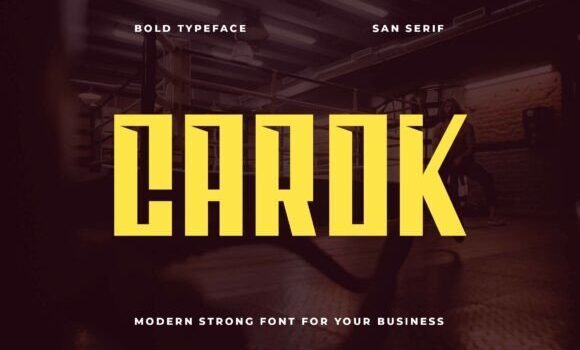
carok
Carok Font – Free Download Introduction to Carok Font Carok is a striking geometric sans serif font built with sharp structure and powerful presence. 📸 Preview Gallery 3 images 📌 Product Name Carok Font 👤 Author Artiveko 📂 Category Explore